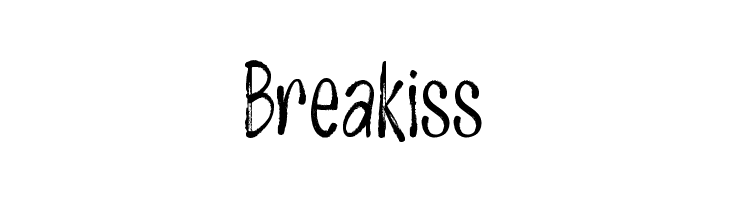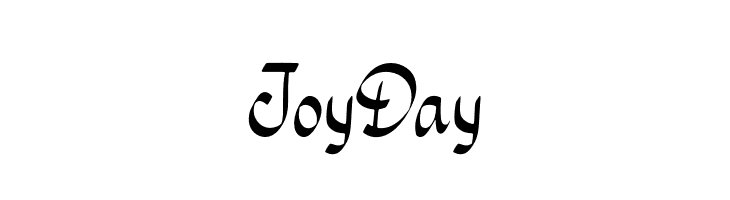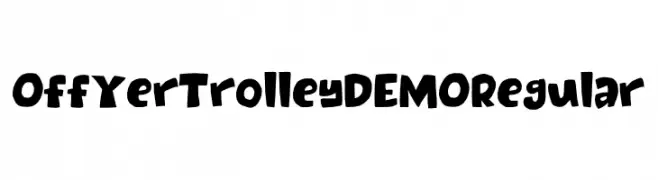
A playful and whimsical font with bold, hand-drawn letterforms.
A bold, playful script font with flowing, cursive letterforms.
A bold, decorative font with sharp angles and smooth curves, ideal for striking designs.
A playful, casual handwritten font with smooth, flowing curves.
A playful, bold font with rounded, irregular shapes and a whimsical style.
A bold, playful font with a three-dimensional, hand-drawn style.
A casual, handwritten font with smooth, flowing strokes and a dynamic appearance.
A bold, inline font with strong contrast and modern appeal.
A bold, energetic script font with a hand-painted look.